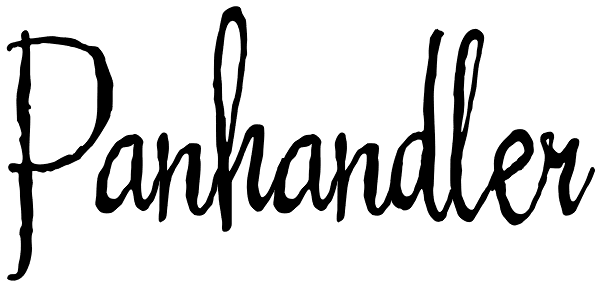
Panhandler
With a hand-inked look, Panhandler flows like decorative but unfussy cursive writing. The font has automatically substituting glyphs and ligatures to avoid some of the problems other connnecting scripts encounter. It also includes a set of swash...